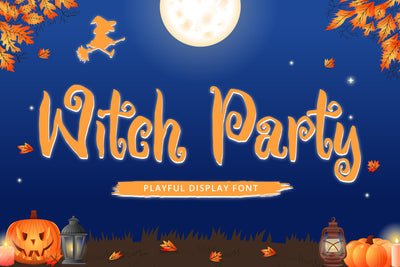
Witch Party - Playful Display Font
Witch Party is a stunning playful display font with natural and scary feels. It will be perfectly used for Branding, Logo Design, Lettering, Logotype, Clothing, Poster, magazine, packaging, posters, shopping bags, t-shirts, book covers, photography, special events and other design project.